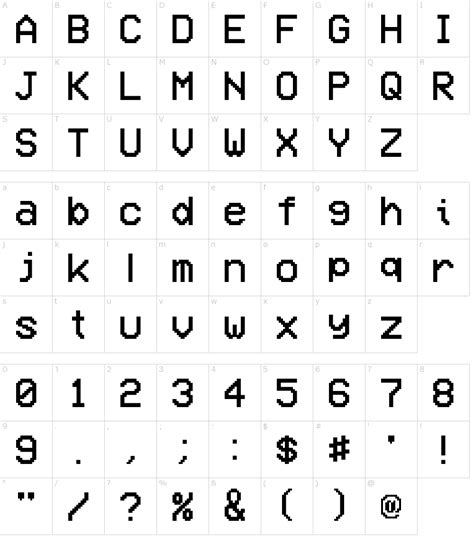
Vcr Mono Font. Web 3,273,574 downloads (1,091 yesterday) 27 comments 100% free. Web vcr osd mono font is a font designed by mrmanet that can be used for various purposes, such as video games, movies,.
Web vcr osd mono font is a font designed by mrmanet that can be used for various purposes, such as video games, movies,. Version 1.00 april 12, 2014, initial release. Web 3,273,574 downloads (1,091 yesterday) 27 comments 100% free. Web vcr osd mono à € by riciery leal. In bitmap (21 px) [ help] 3,264,066 downloads (863 yesterday) 27 comments 100% free.
Web vcr osd mono à € by riciery leal. Web 3,273,574 downloads (1,091 yesterday) 27 comments 100% free. In bitmap (21 px) [ help] 3,264,066 downloads (863 yesterday) 27 comments 100% free. Version 1.00 april 12, 2014, initial release. Web vcr osd mono à € by riciery leal. Web vcr osd mono font is a font designed by mrmanet that can be used for various purposes, such as video games, movies,.